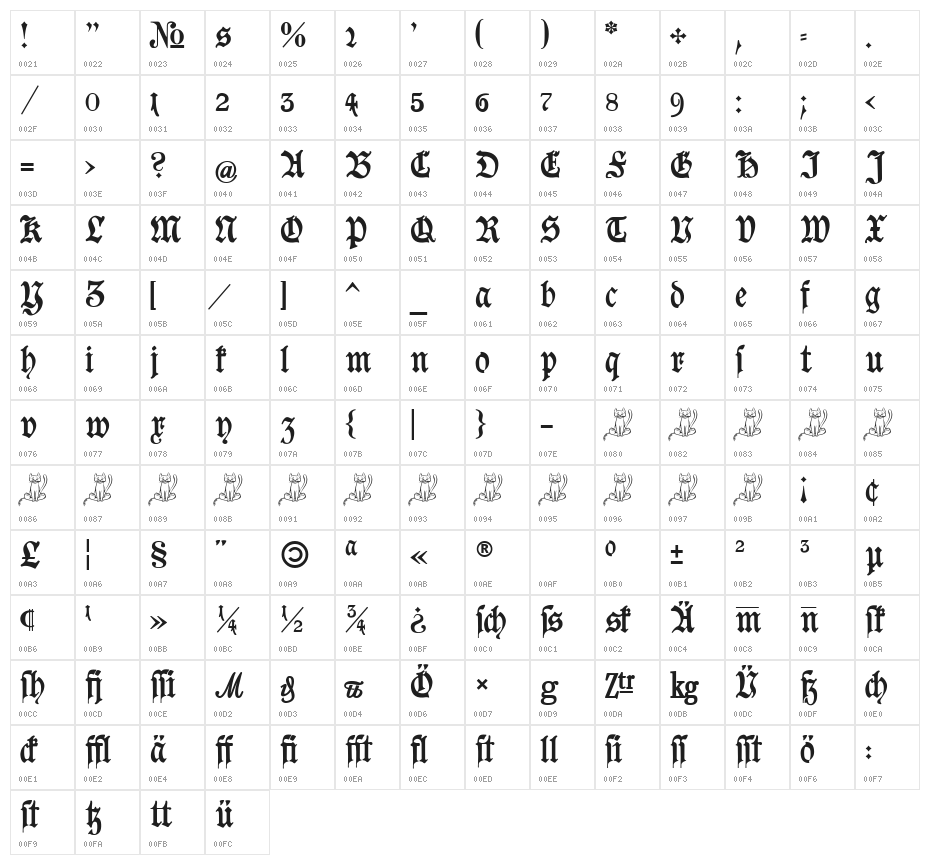
Goeschen Fraktur Font
Goeschen Fraktur Description
This font embodies the traditional elegance of Blackletter typefaces, characterized by its intricate and ornate design. The letters are bold and angular, with sharp, pointed serifs and a high contrast between thick and thin strokes. The uppercase characters are particularly elaborate, featuring decorative flourishes that enhance their Gothic appearance. The lowercase letters maintain a consistent style, with a slightly condensed form that adds to the overall compactness of the typeface. Numbers and special characters are designed to match the ornate style, ensuring a cohesive look across all text elements. This font is ideal for projects that require a historical or medieval aesthetic, offering a sense of grandeur and formality.